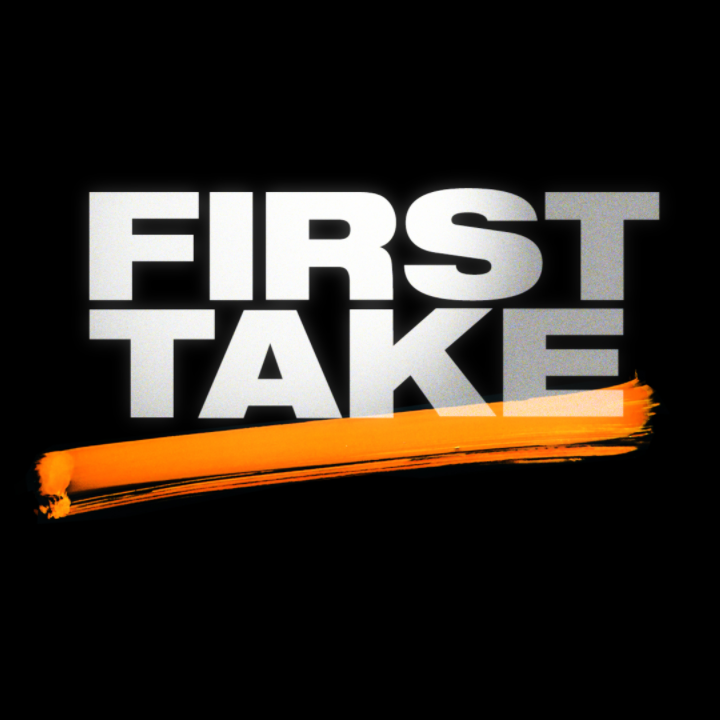
First Take Font
Fonts in UseFirst Take is a sports talk show that airs on ESPN, featuring lively debates and discussions on the hottest topics in the world of sports. Hosted by Stephen A. Smith, Max Kellerman, and Molly Qerim Rose.
The talk show's logo features a font closely resembling Helvetica Neue Black Extended, with the exception of the letter R, which has been altered from a curved end to a straight one.